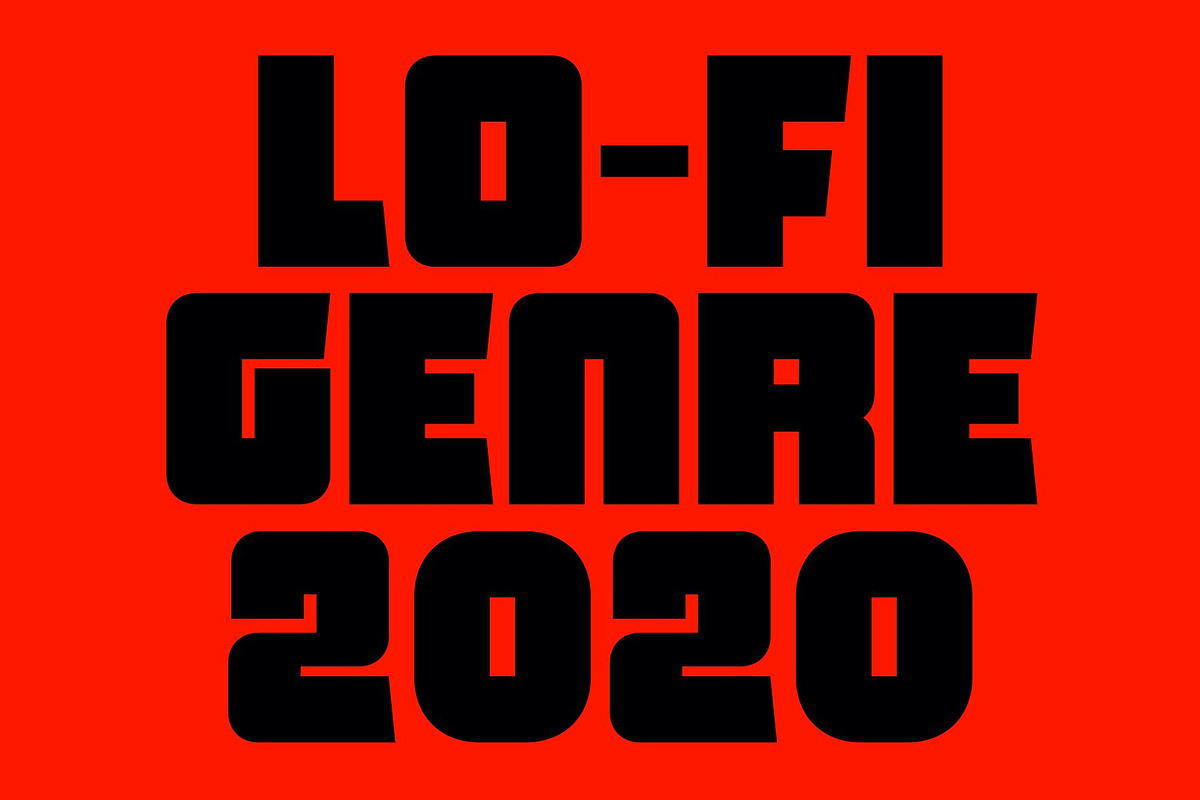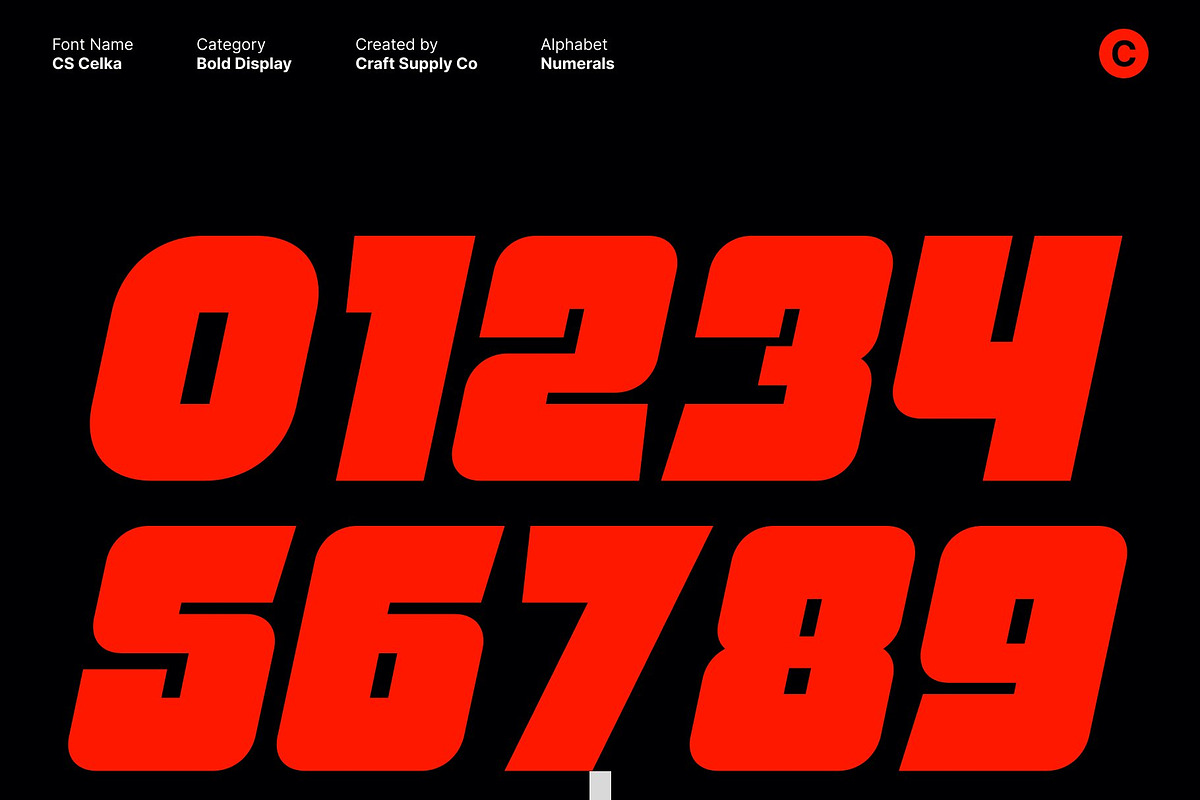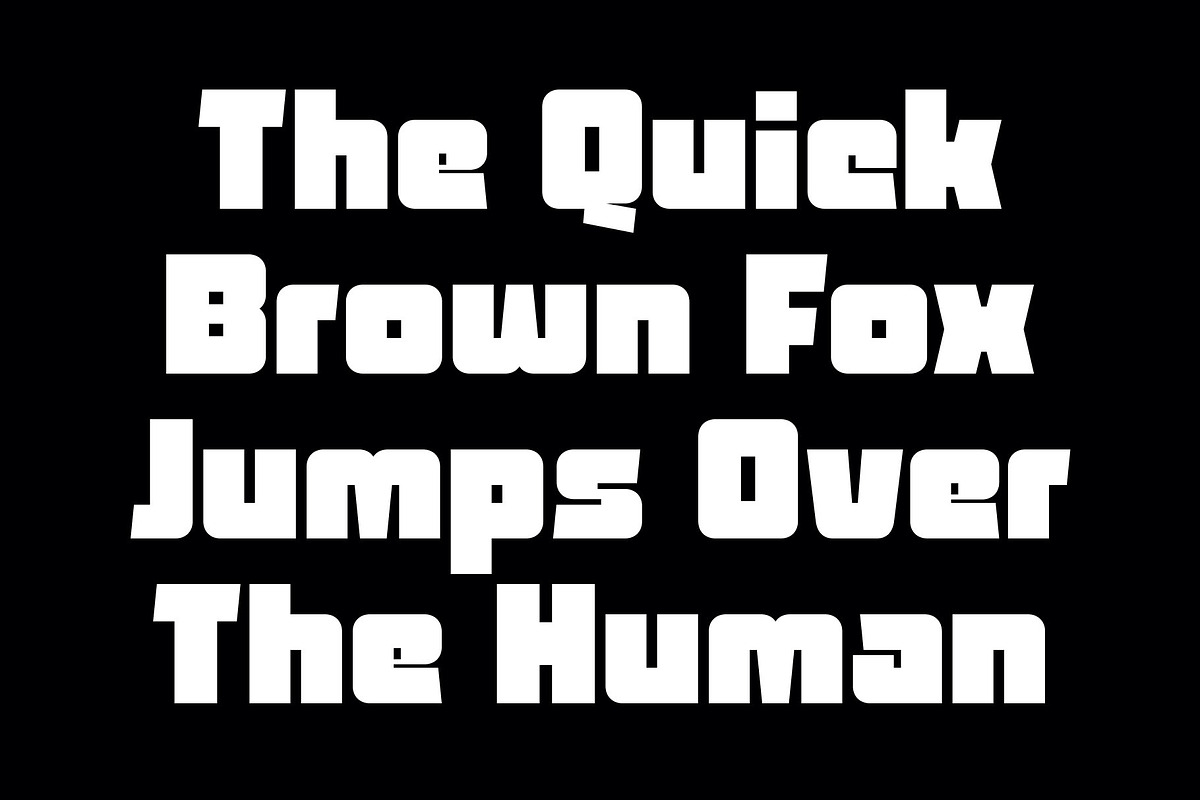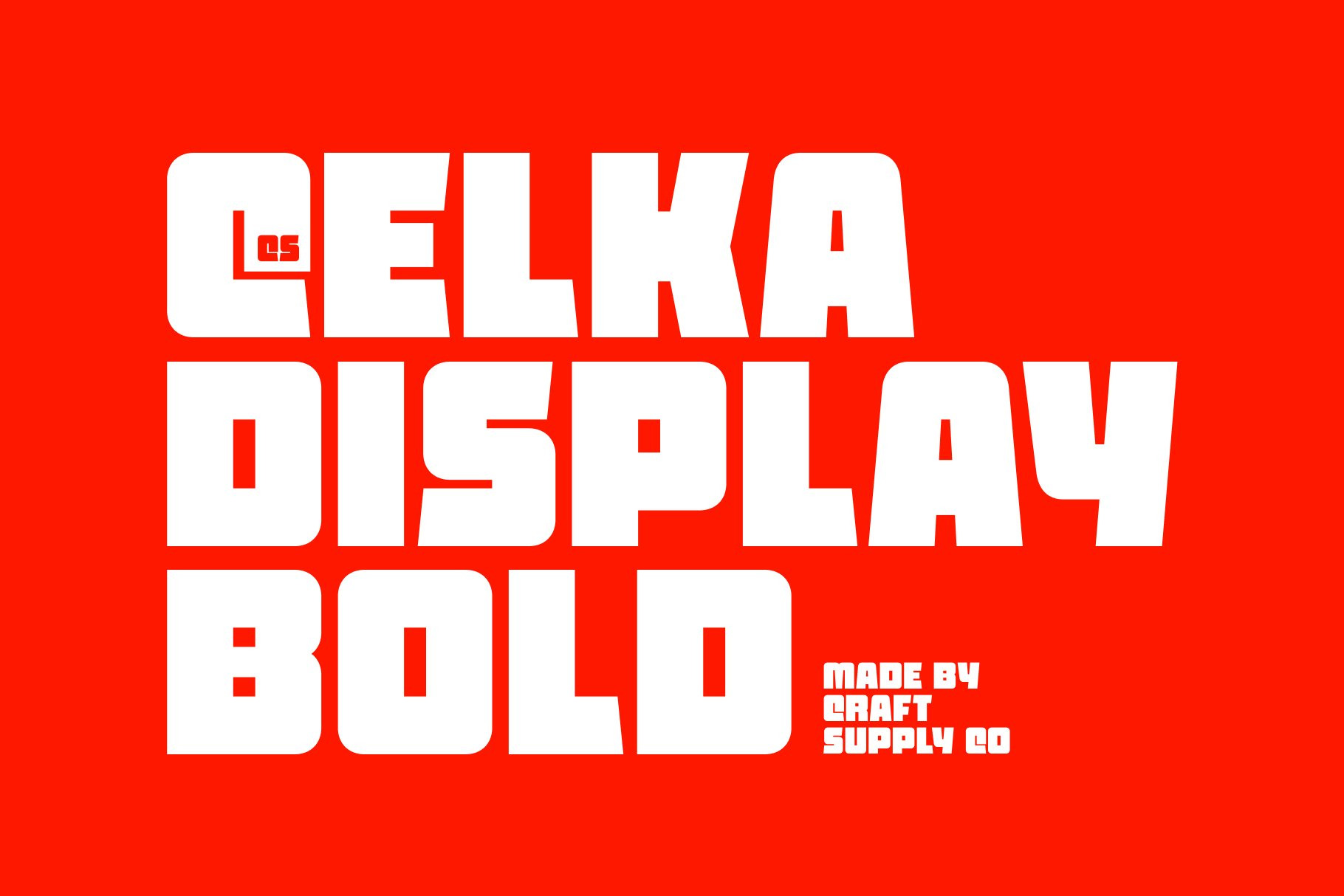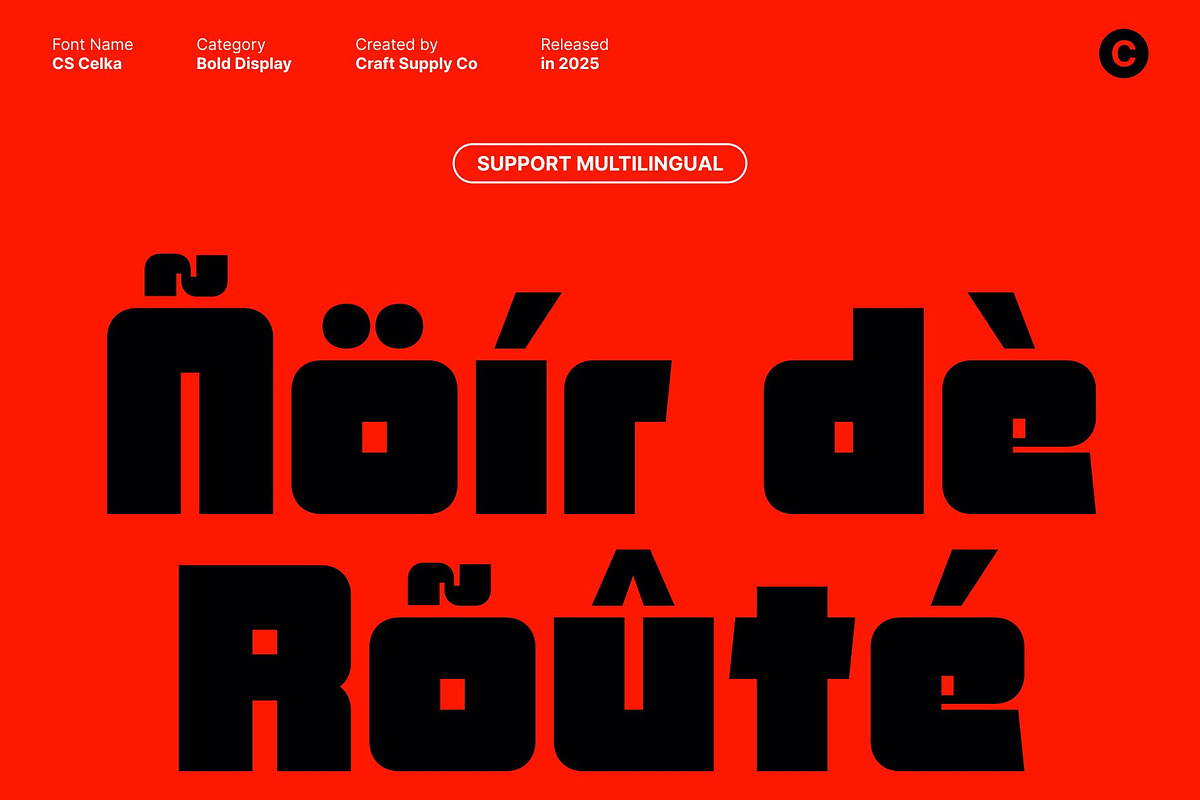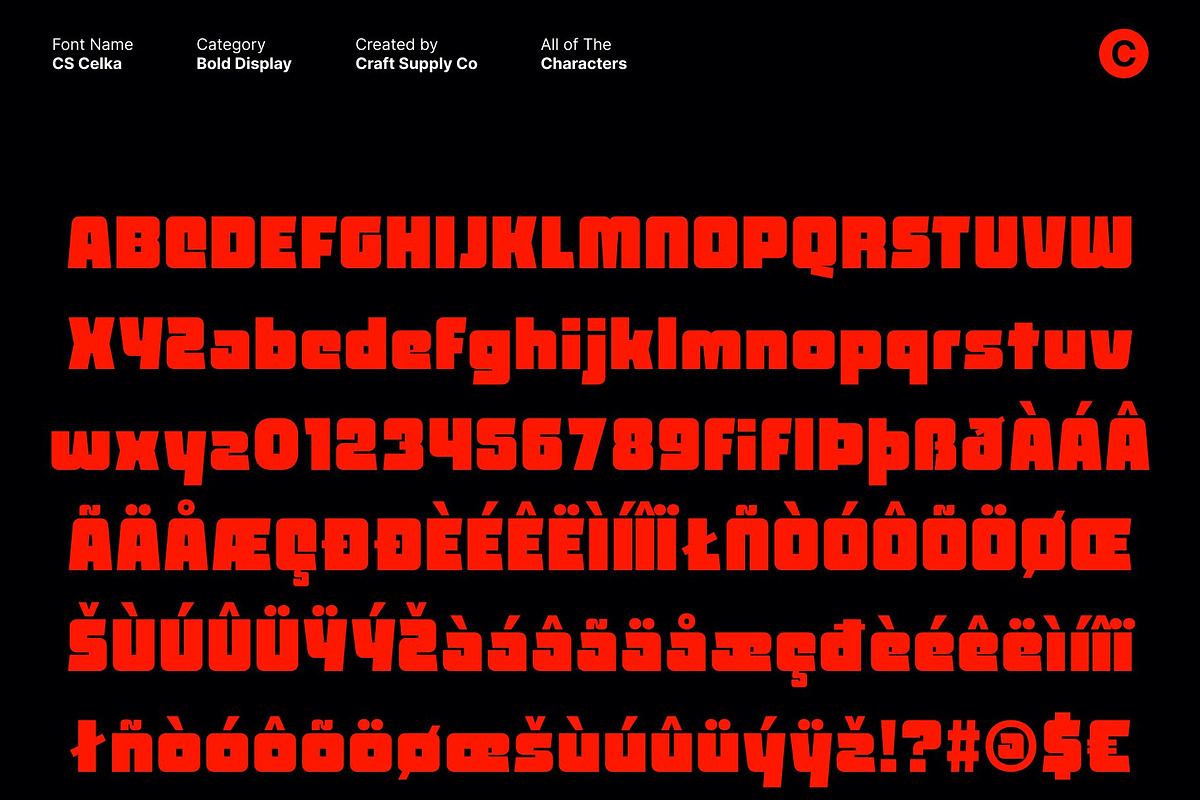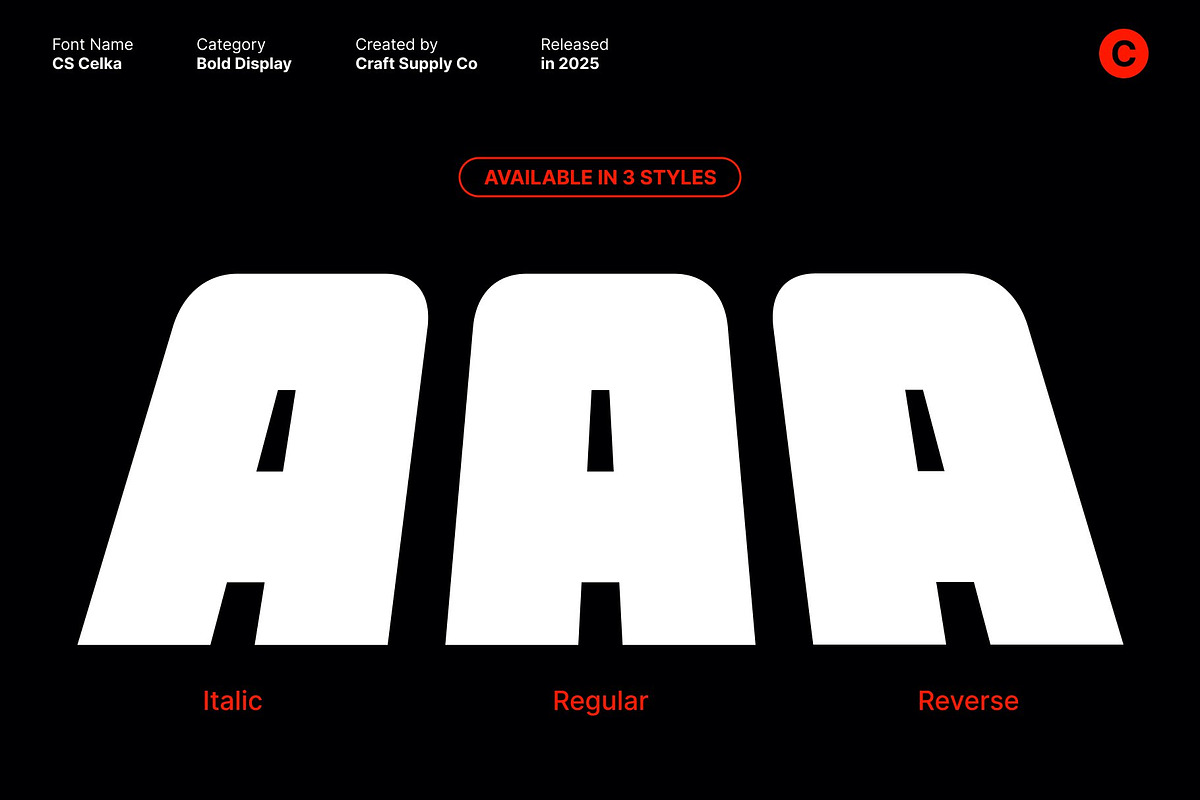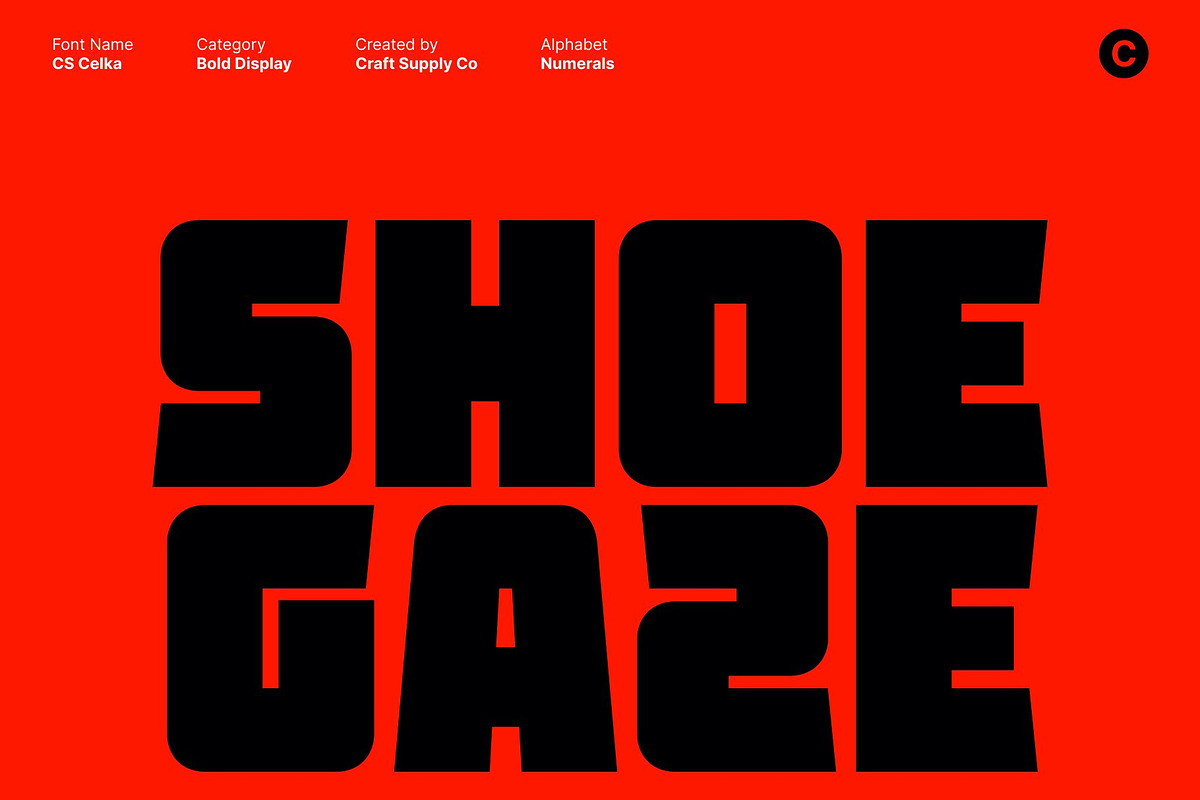
CS Celka – Bold Display Font
CS Celka – Bold Display Font with Strong, Chunky Presence
Powerful Weight for a Confident, Commanding Look This is a bold display font crafted to make an immediate and unforgettable statement. Its thick, heavy strokes project confidence and strength, giving every word a striking presence. Designed for maximum visual impact, this font ensures your message is seen, felt, and remembered the moment it appears.
Chunky, Solid Letterforms for Maximum Visibility Built with chunky proportions and solid geometry, delivers exceptional readability even in large-scale layouts. Its robust forms create a balanced yet forceful look that stands out across any medium. Whether viewed up close or from afar, the font retains its clarity and power, making it perfect for attention-grabbing designs.
Ideal for Headlines, Posters, and Impactful Branding This font thrives in display applications where boldness and immediacy matter. Use it for headlines, posters, promotional graphics, advertising materials, and branding projects that require a strong visual punch. Its heavy weight and commanding presence give your designs authority and confidence, making it a go-to choice for high-impact communication.
Perfect for Energetic, Modern, and Dynamic Creative Projects With its powerful build and modern appeal, this font fits seamlessly into creative environments that demand intensity and bold character. From event graphics and merchandise to logo concepts and social media visuals, this font brings energy and impact to every layout.
- CS Celka Regular
- CS Celka Italic
- CS Celka Reverse Italic